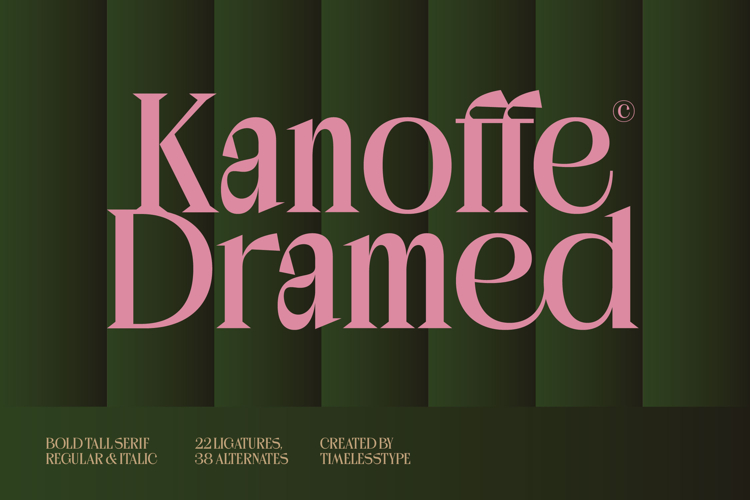
Kanoffe Dramed - Dramatic Display Serif
Kanoffe Dramed is built for the discerning designer who demands control. Unlock a world of creative expression with a full suite of features, including 38 stunning alternates that transform characters into works of art and 22 unique ligatures that ensure your typography flows with seamless elegance. Paired with its refined Italic variant, you have the power to craft bespoke logotypes and headlines that feel custom-made for every project, giving your work a distinctive and unforgettable personality.